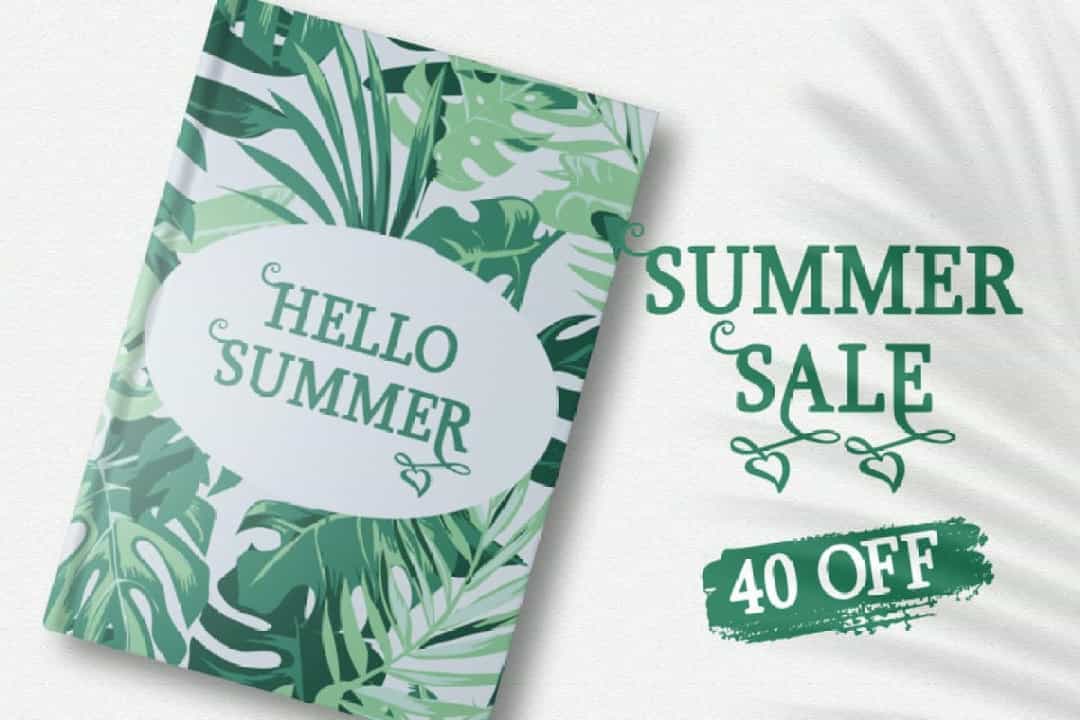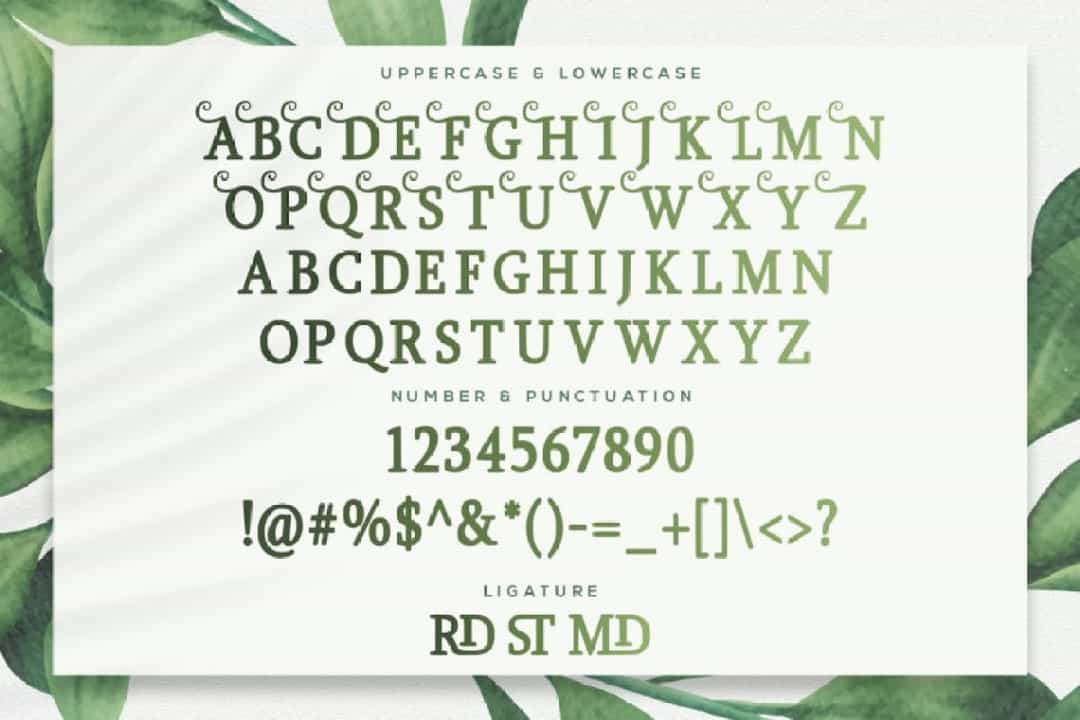
Girdens Decorative Serif Font
Girdens is a beautiful modern and elegant serif style font. This whimsical font will surely look great in any setting that it is applied to. Ideal for applications like invitations, clothes, title books, stationery, branding, logos, greeting cards, t-shirt packaging, designs of posters, and a lot other uses, Girdens can be easily distinguished from a crowd.